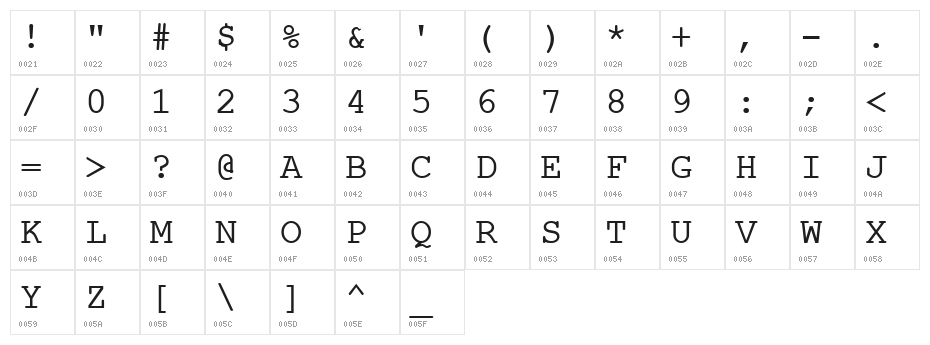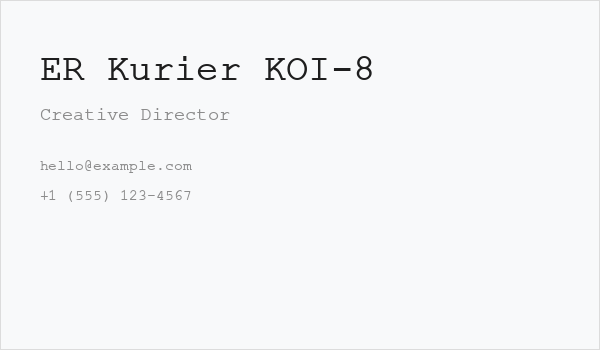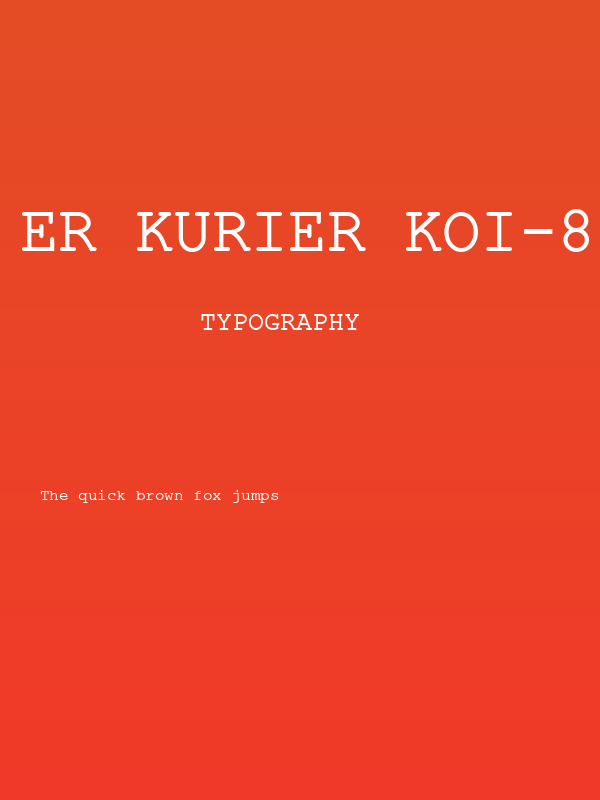
ER Kurier KOI-8 Font
ER Kurier KOI-8 Description
This font features a classic monospaced style, characterized by evenly spaced characters that provide a clean and organized appearance. The uppercase and lowercase letters maintain a consistent height, with slight variations in width to accommodate the monospaced design. The numerals are clear and distinct, ensuring readability in various contexts. Special characters are well-defined, making this font suitable for coding, technical documents, or any project requiring precise alignment. The overall aesthetic is reminiscent of typewriter fonts, offering a vintage yet functional feel.
| Use Case | Coding, Technical documents, Retro designs |
| Proposed Projects | Ideal for coding, technical documentation, retro-themed designs, and any project requiring precise text alignment. |